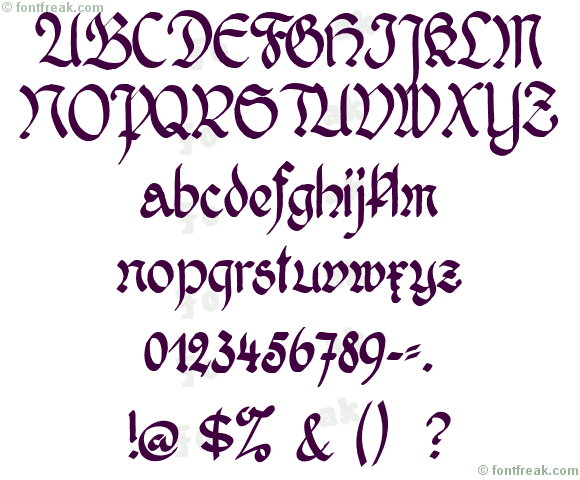
WernickeSchwabacher
About WernickeSchwabacher
WernickeSchwabacher, designed by Peter Wiegel, is a distinctive display font that draws inspiration from traditional German blackletter styles. As a serif font, it features sharp, angular strokes that evoke a sense of historical elegance and authenticity. The unique letterforms are characterized by their moderate stroke weight and high contrast, giving each character a bold presence while maintaining legibility. The careful spacing between letters enhances readability, making it suitable for a variety of applications.
This font is particularly well-suited for use cases such as wedding invitations, where its ornate design can add a touch of sophistication and grandeur. Additionally, it works beautifully for movie posters, especially for historical or fantasy genres, capturing the viewer's attention with its dramatic flair. Restaurant menus can benefit from WernickeSchwabacher's unique style, particularly for establishments aiming to convey a rustic or vintage atmosphere. Graphic designers will find it valuable for branding projects that require a strong visual identity, while content creators can use it in promotional materials to evoke a sense of tradition and craftsmanship.
Targeting graphic designers, small business owners, and content creators, WernickeSchwabacher offers a unique blend of elegance and authenticity that can elevate any design project. The font's historical roots and decorative elements set it apart from more conventional typefaces, making it a compelling choice for those looking to make a statement.